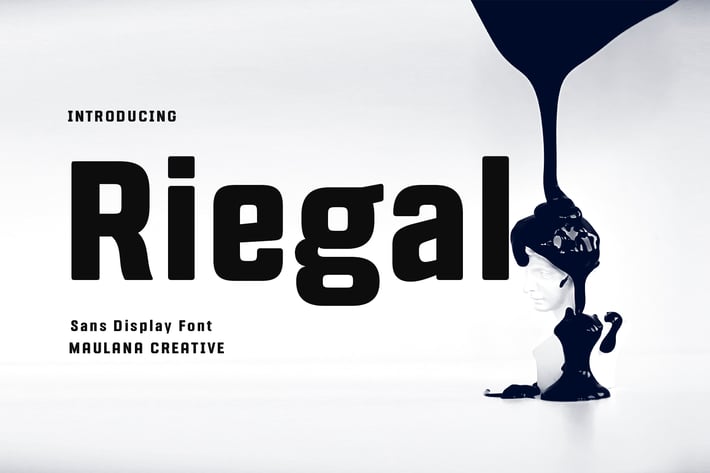
Riegal Display Sans Font
Riegal is a Square-is sans Display Tech font. Bold stroke, fun character with a bit of ligatures and alternates. To give you an extra creative work. Riegal font support multilingual more than 100+ language. This font is good for logo design, Social media, Movie Titles, Books Titles, a short text even a long text letter and good for your secondary text font with script or serif. Make a stunning work with Riegal font.